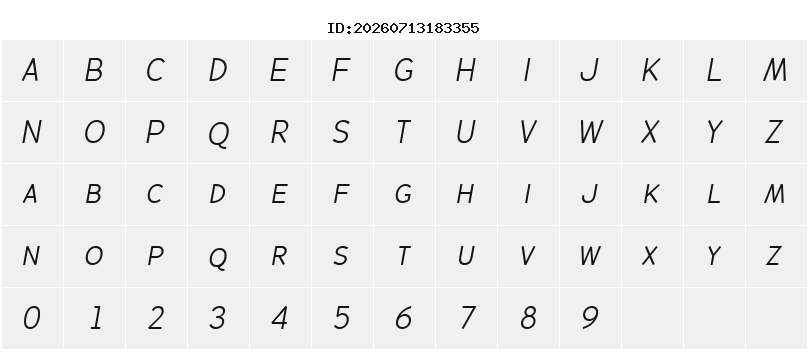
About BacktalkSans BTN ShortCap.ttf
BacktalkSans BTN ShortCap.ttf is a modern, elegant sans-serif font designed for ultimate readability and visual harmony. Perfect for branding, headlines, web design, and print materials.